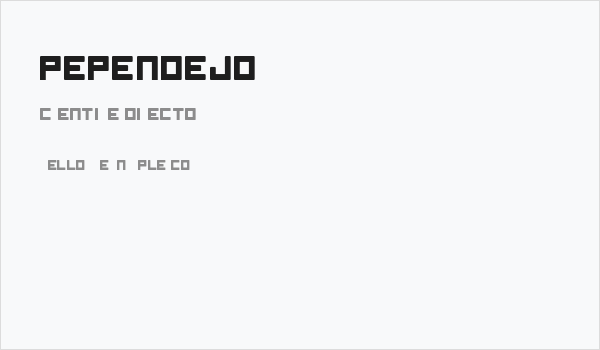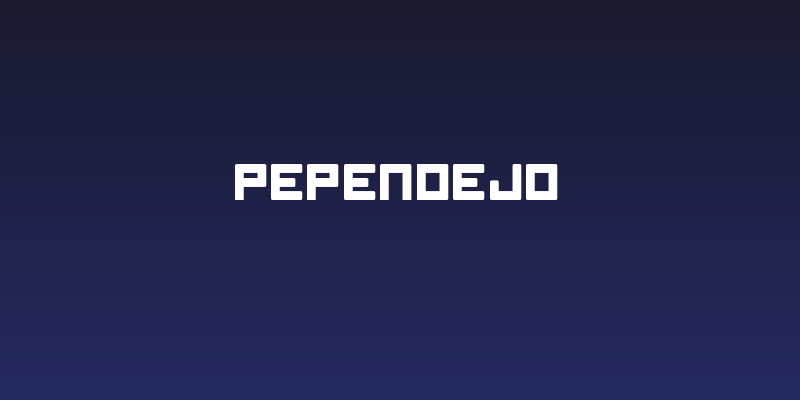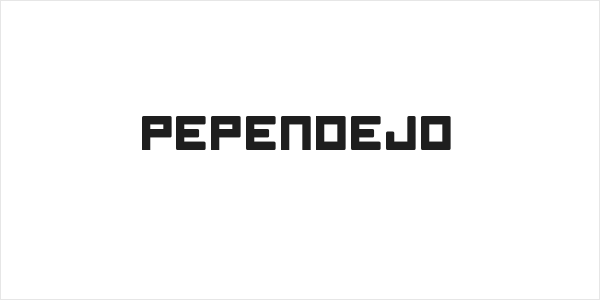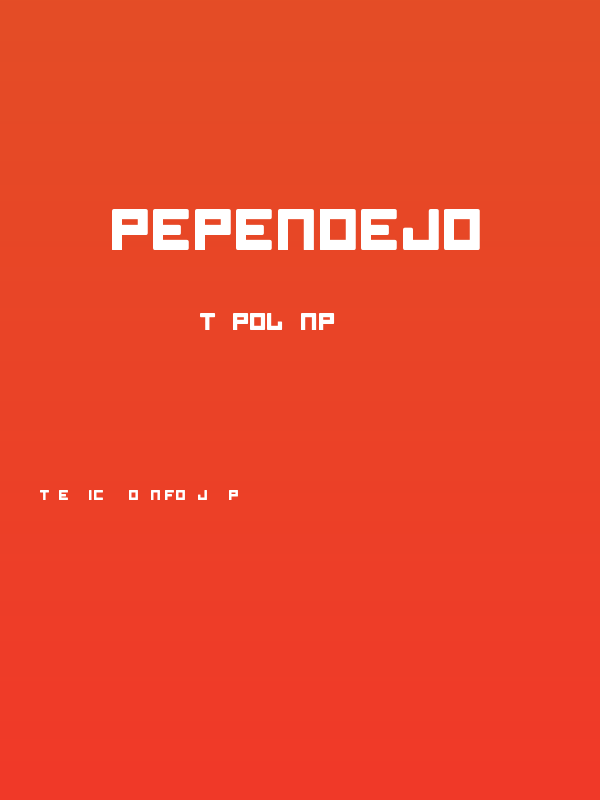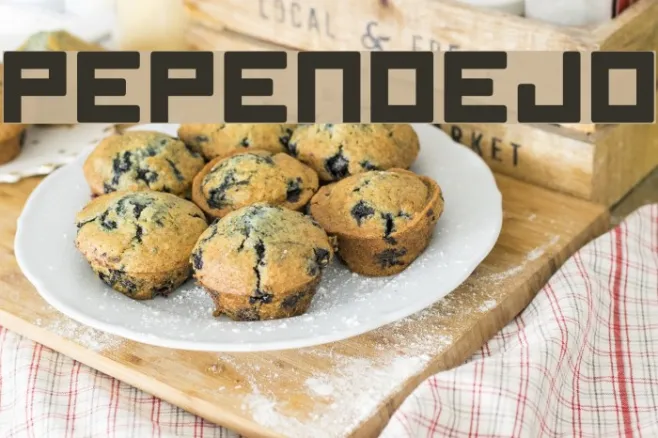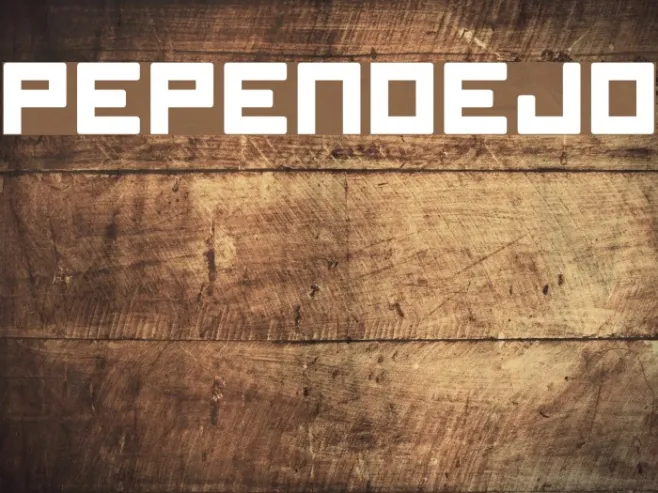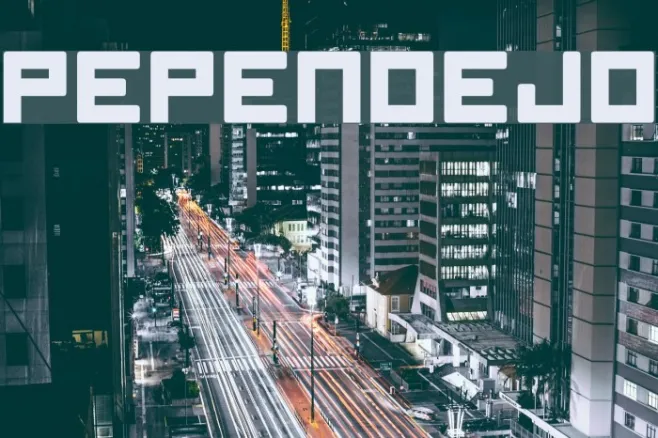
PePendejo Font
PePendejo Description
This font features a bold, geometric design with a distinctly modern and futuristic aesthetic. The characters are constructed with uniform stroke widths, giving them a monospaced appearance. The overall style is blocky and angular, with sharp corners and straight lines dominating the design. The uppercase letters are particularly striking, with a strong presence and a sense of solidity. The lowercase letters maintain the same geometric style, ensuring consistency throughout the typeface. This font is well-suited for projects that require a modern, tech-inspired look.
| Proposed Projects | Ideal for tech branding, video game titles, futuristic posters, and digital interfaces. |